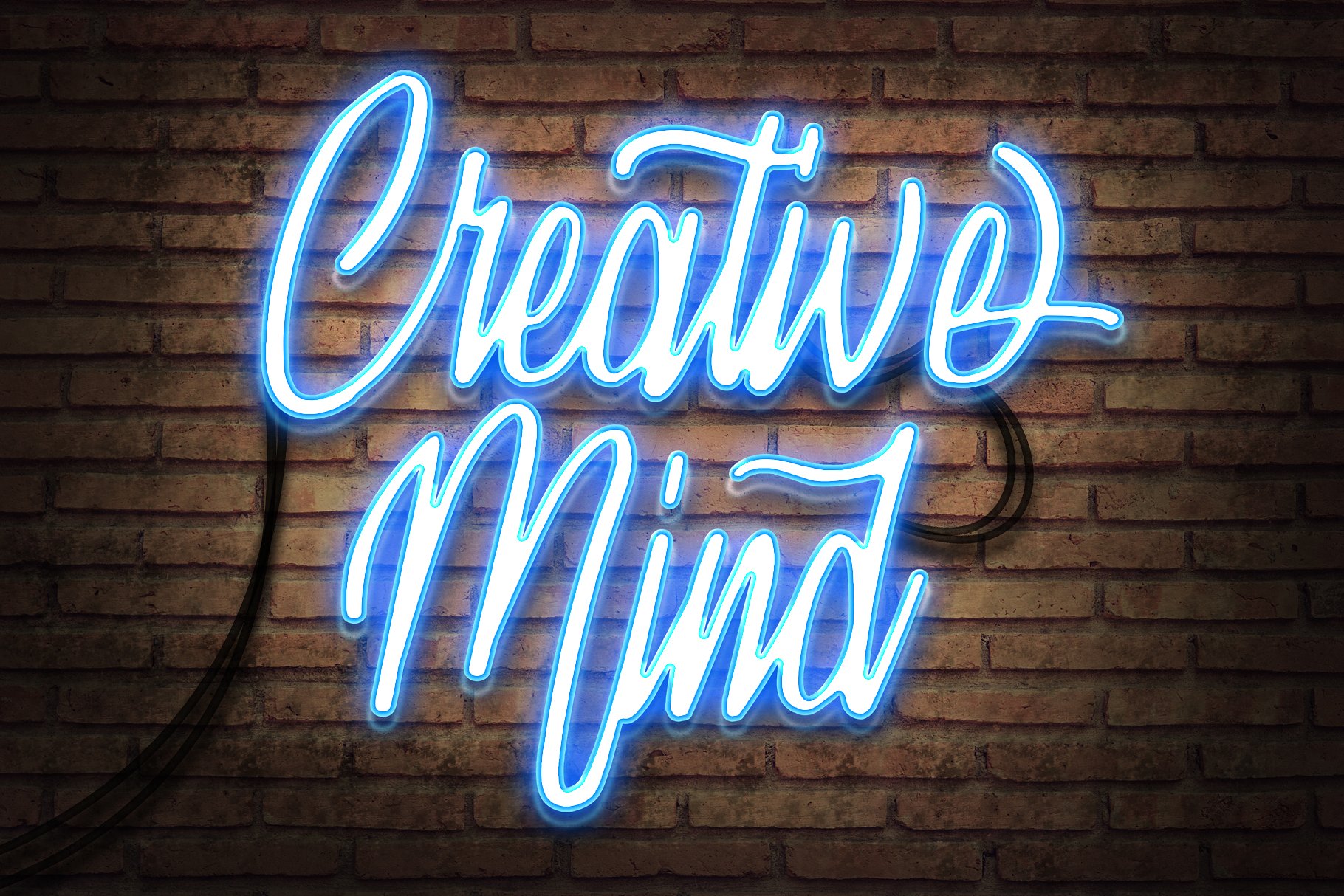
Vilmada Calligraphy Font is a superb handwritten font that will make your work stand out through its elegant and curvy lines. Vilmada is PUA encoded which means you can access all of the glyphs and swashes with ease.
Designer Name: | Koplexs Studio |